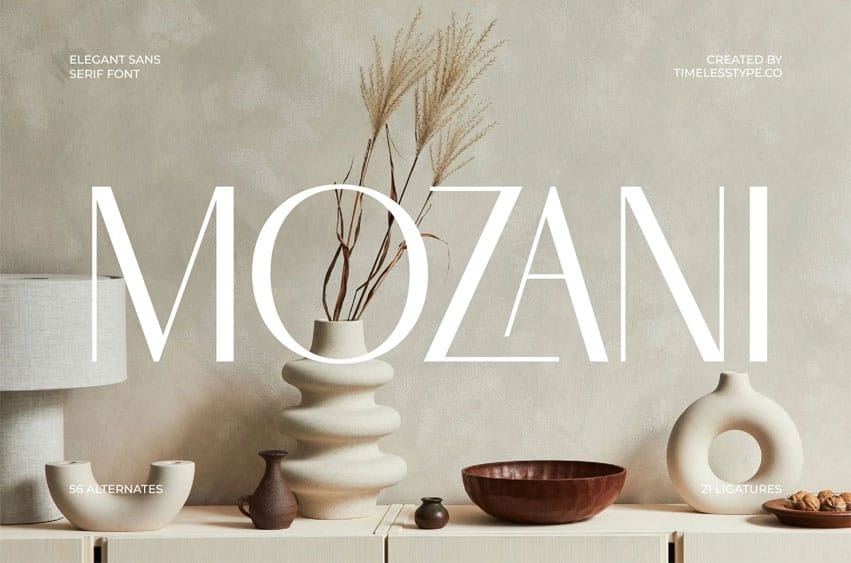
Mozani Font is an elegant sans-serif font that blends modern minimalism with sophistication. Featuring 21 ligatures and 56 alternates, it delivers clean lines and refined proportions that make it ideal for branding, editorials, posters, and luxury packaging.
Mozani’s sleek and balanced design adds a contemporary yet elegant touch, perfect for projects that seek simplicity, class, and visual harmony.